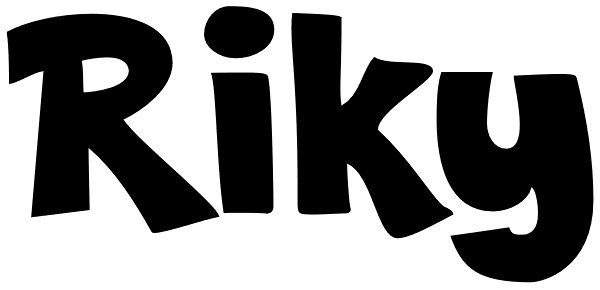
Riky
Riky is a heavy sans typeface carefully hand-drawn made, with different letter shapes, full of ligatures, and stylistic alternates that will provide great flexibility for your designs. Ricky's typeface is lively, dynamic and energetic. This font has...
Riky
Riky Shadow